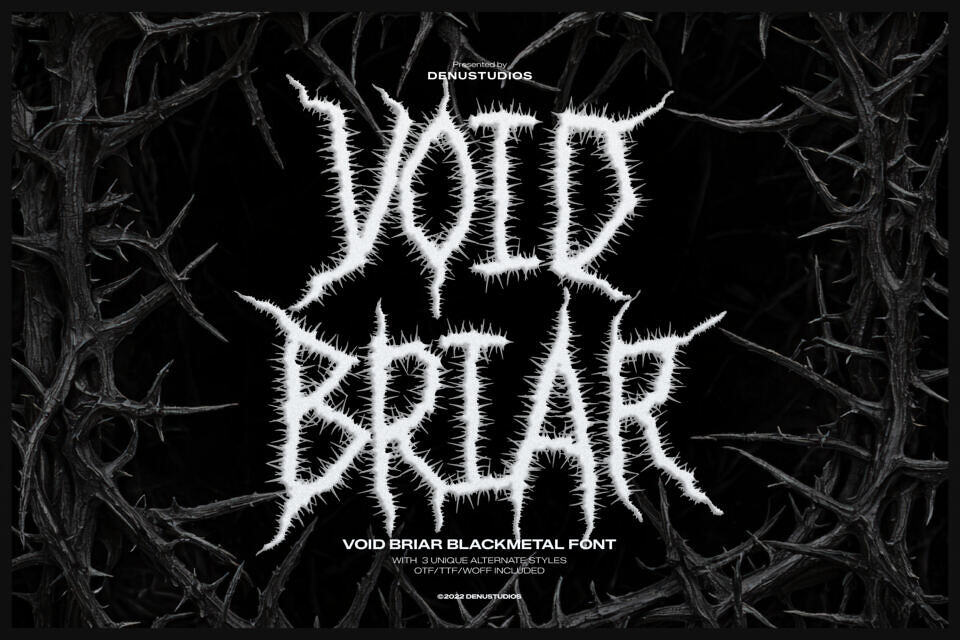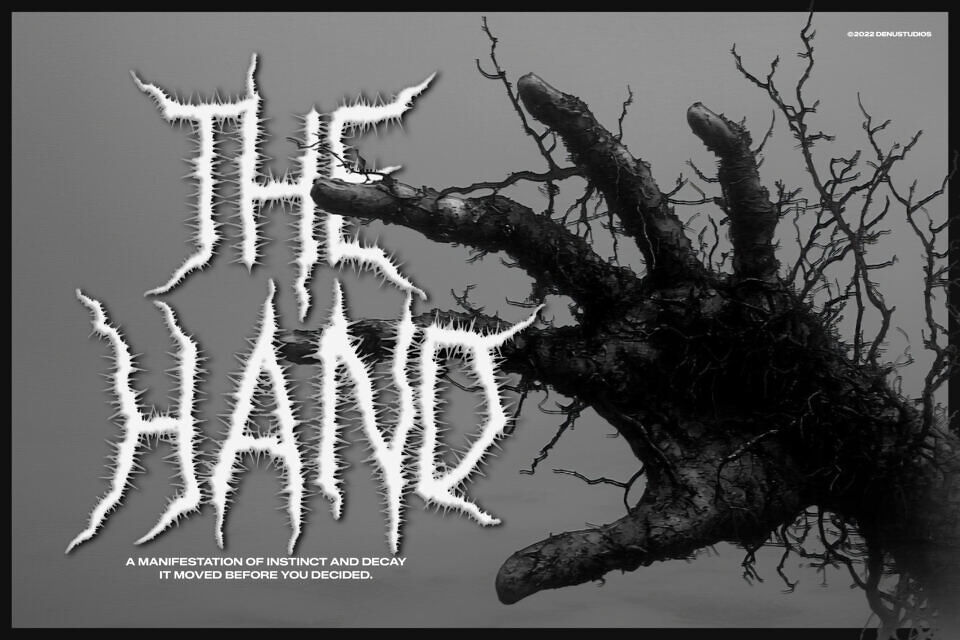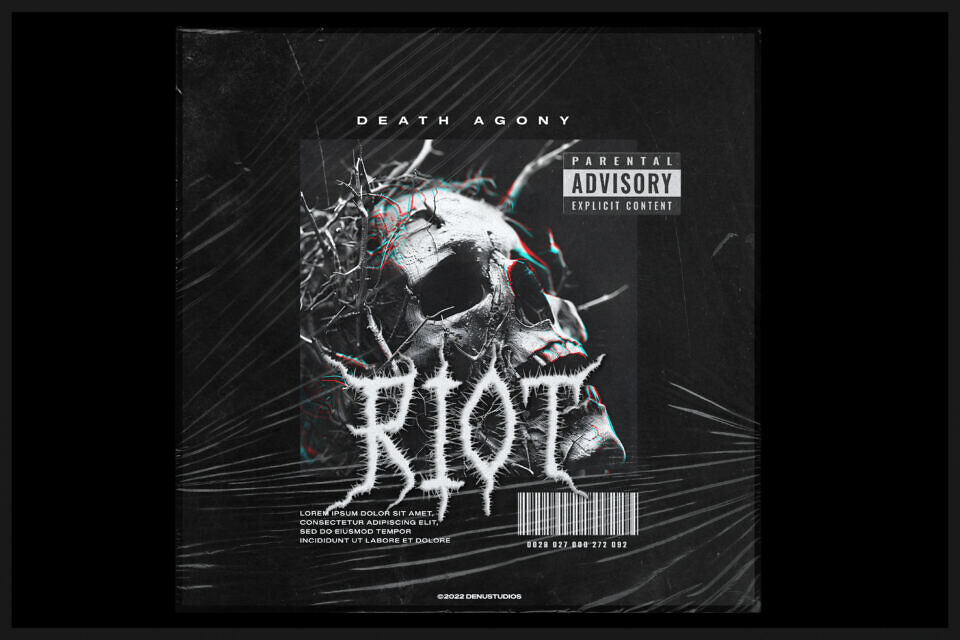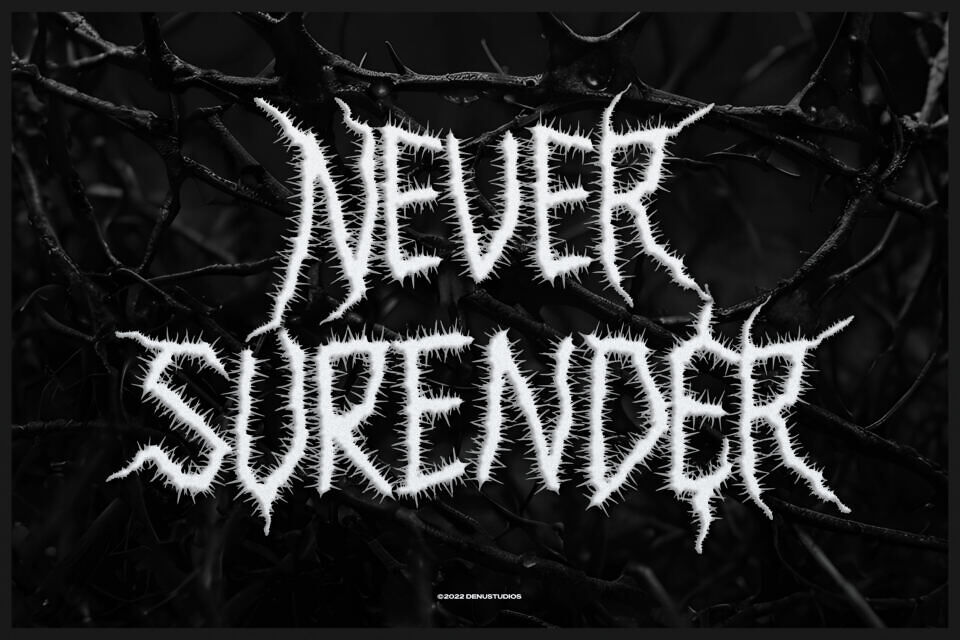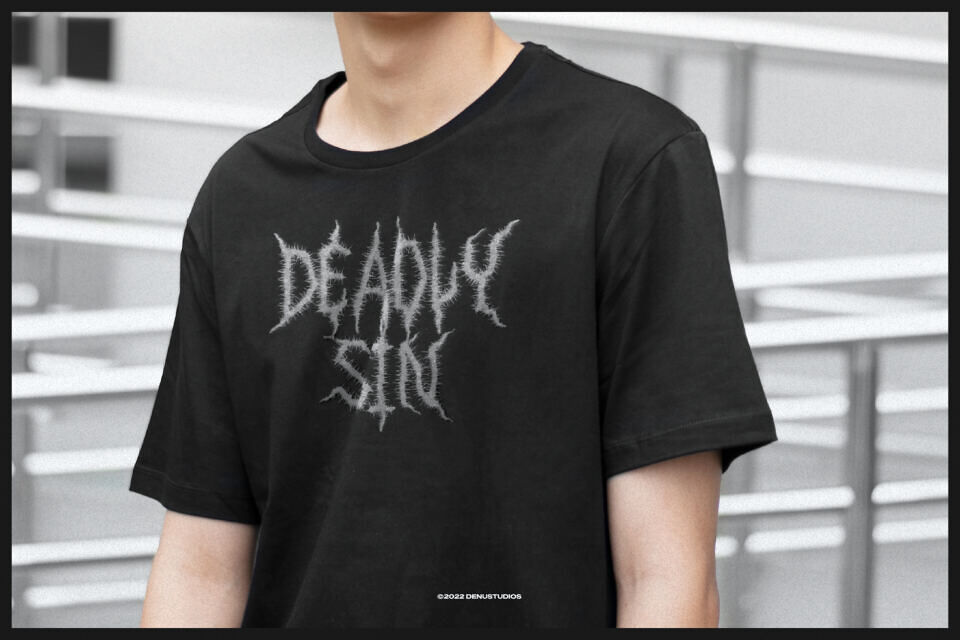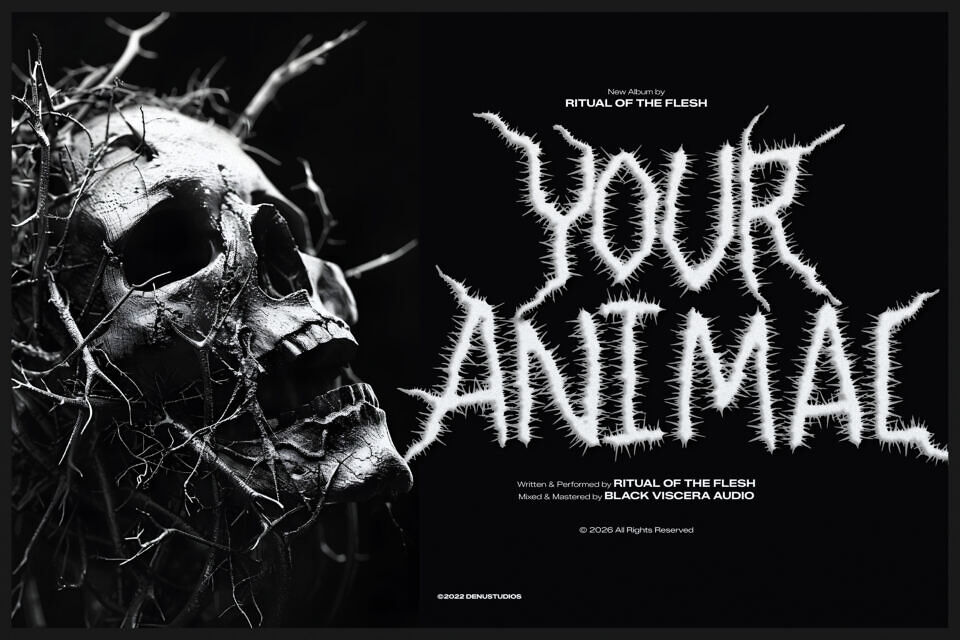
Void Briar is an aggressive and high-impact display font designed for visceral visual tension. This blackmetal font features complex character geometry defined by sharp, needle-like protrusions and jagged, thorny edges that create a sense of raw, organic danger.
The typeface utilizes irregular vertical heights and dense, interlocking forms to convey a cinematic and atmospheric intensity. It is a premier choice for heavy metal branding, cinematic horror titles, edgy streetwear graphics, and high-impact alternative marketing materials.